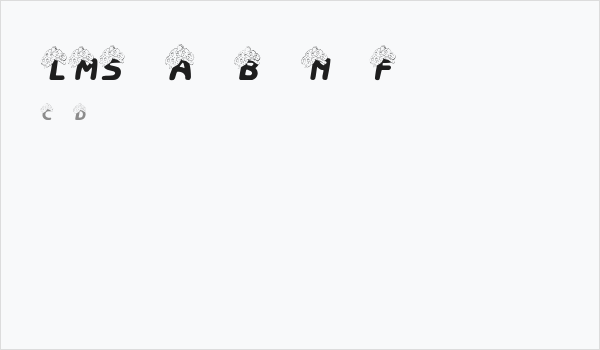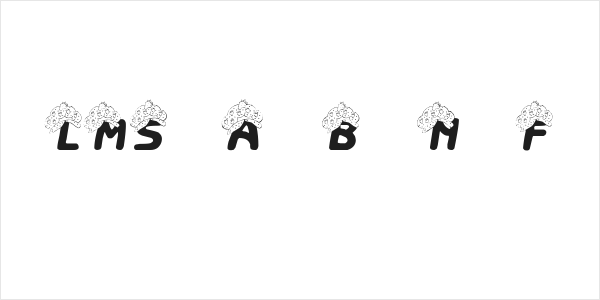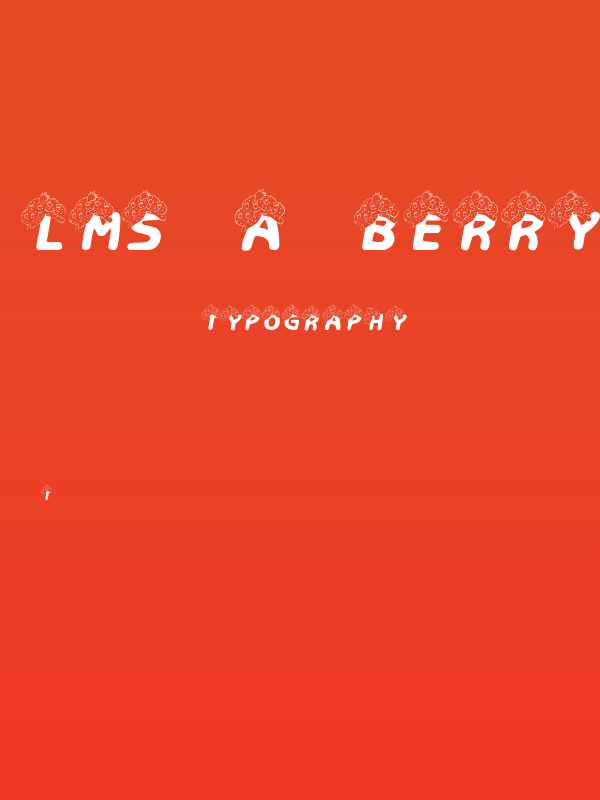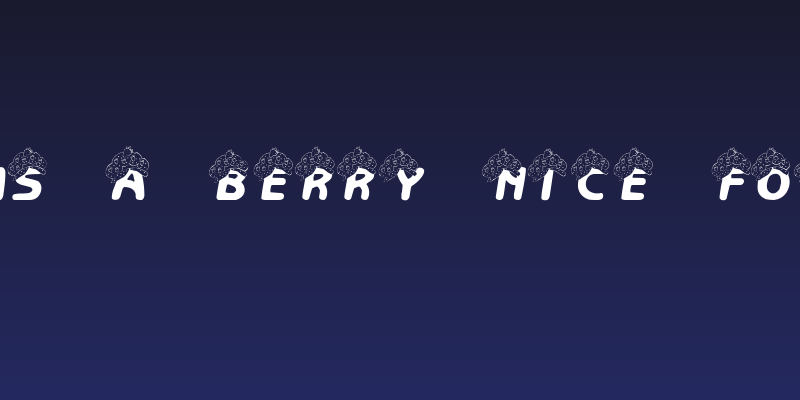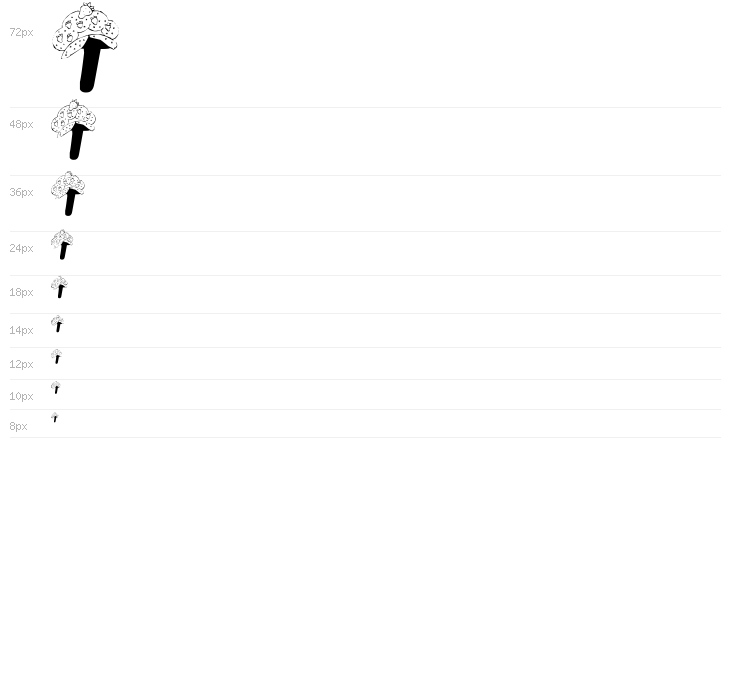
LMS A Berry Nice Font Font
LMS A Berry Nice Font Description
This playful and whimsical font features a unique design where each character is topped with a berry-like illustration, adding a fun and decorative element. The letters are bold and rounded, creating a friendly and approachable appearance. The combination of the bold letterforms with the intricate berry details makes it stand out as a decorative choice. The font maintains a consistent style across both uppercase and lowercase letters, as well as numbers and special characters, ensuring versatility in various design applications.
| Proposed Projects | Ideal for children's book covers, playful branding, greeting cards, and themed party invitations. |